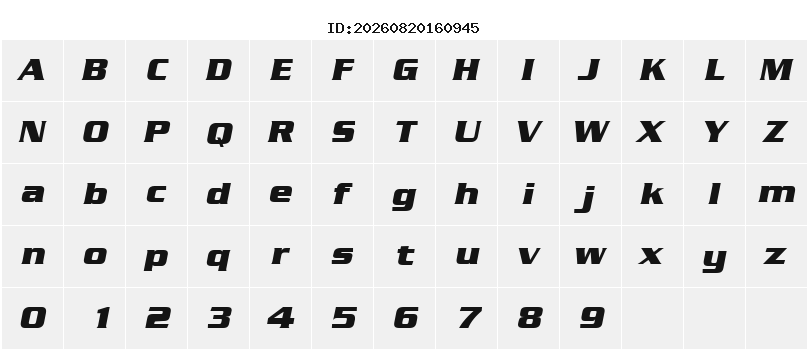
Serpentine Preview
• Font Name: Serpentine
• Font Style: BoldItalic
• Full Font Name: Serpentine BoldItalic
About Serpentine.ttf
Serpentine.ttf is a modern, elegant sans-serif font designed for ultimate readability and visual harmony. Perfect for branding, headlines, web design, and print materials.